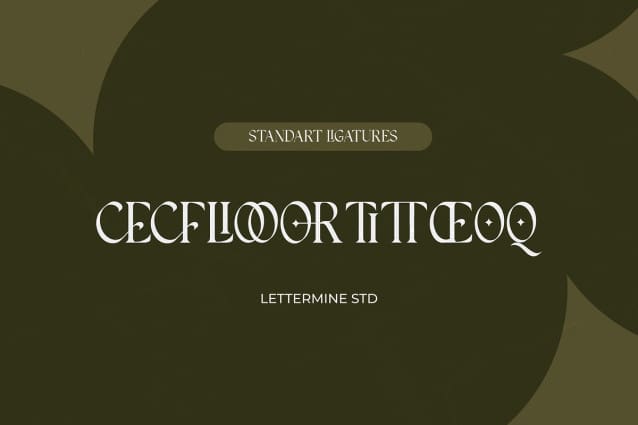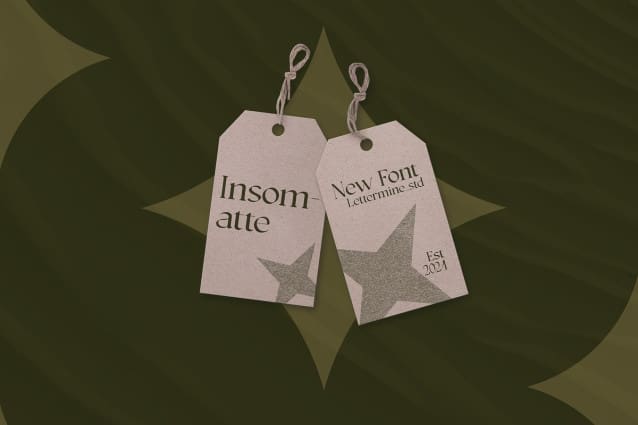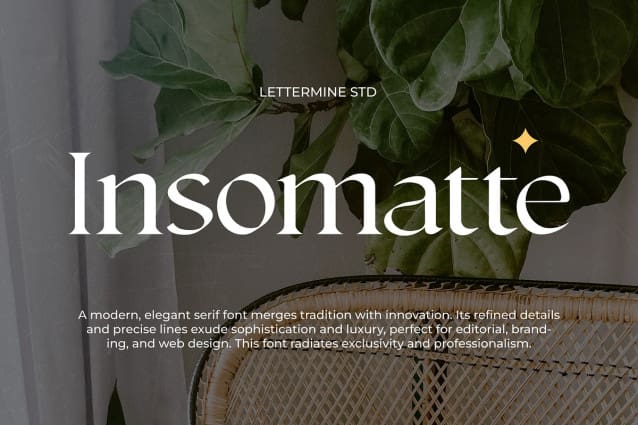
Insomatte Font
Insomatte Font a refined modern serif font that adds a touch of sophistication to any project. Perfectly crafted to meet all your design needs.